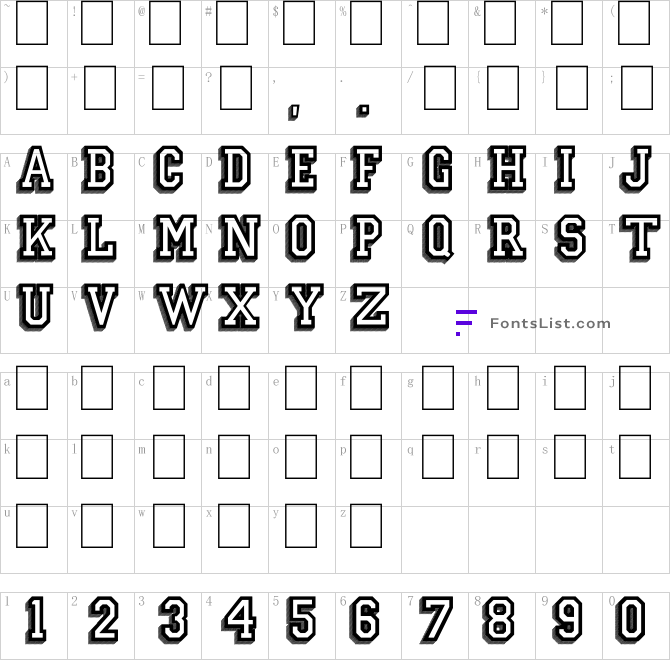
- Font Name:Campus Relief
Campus-Relief.ttf is a very beautiful artistic font, Campus-Relief.ttf is widely used in the design and printing of various books and pictures,Campus-Relief.ttf has a strong visual impact,Campus-Relief.ttf is a commonly used font in newspapers, magazines and books, and is used in posters, e-commerce Poster design, store design, logo design, font design and other fields.Campus-Relief.